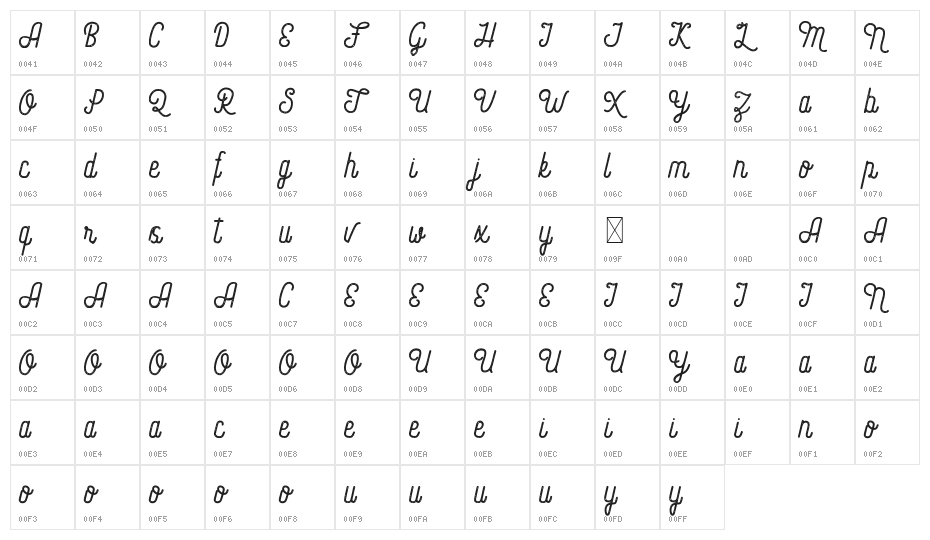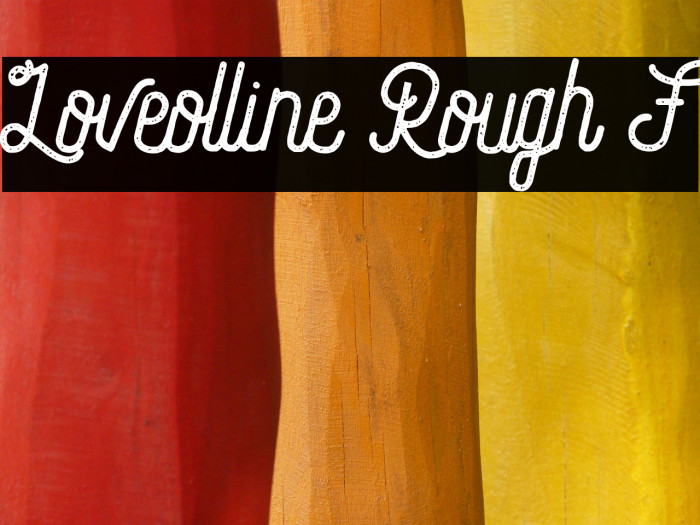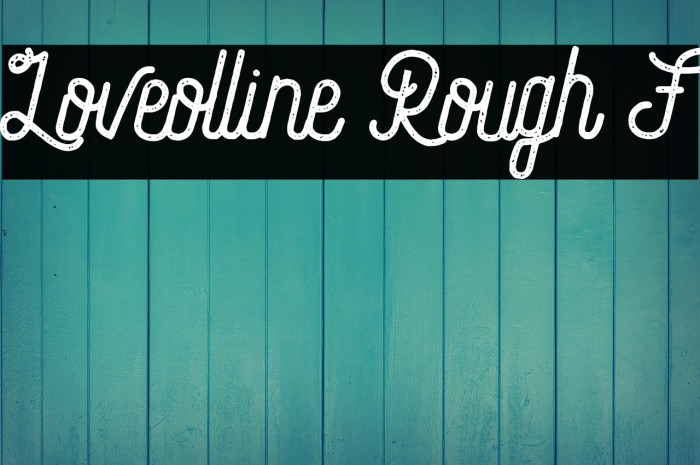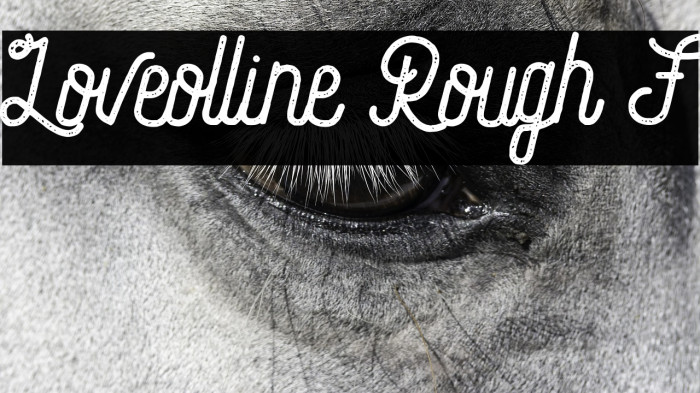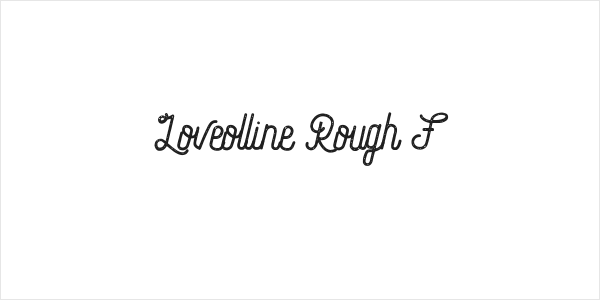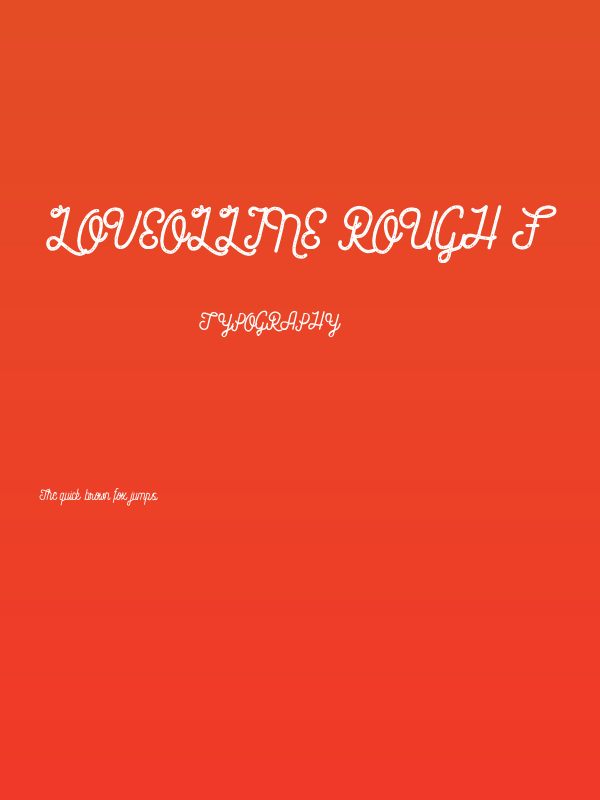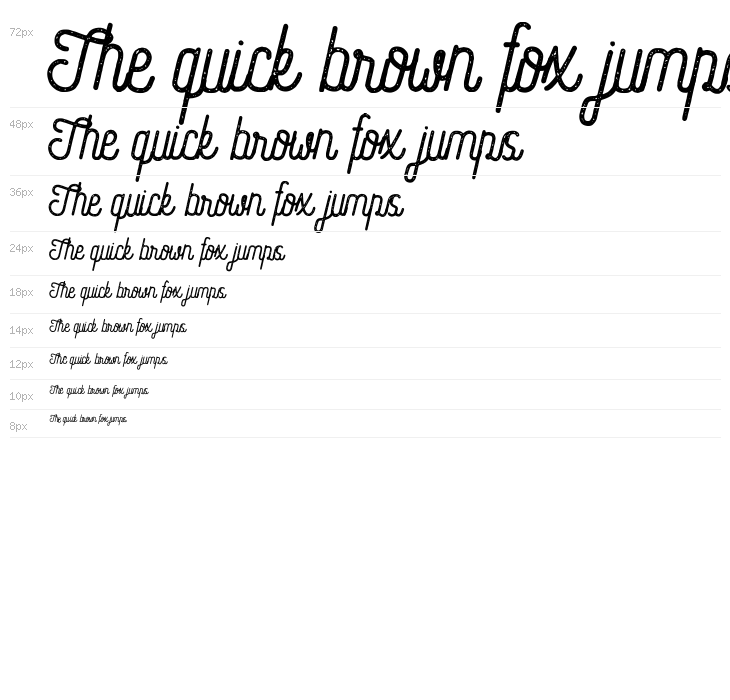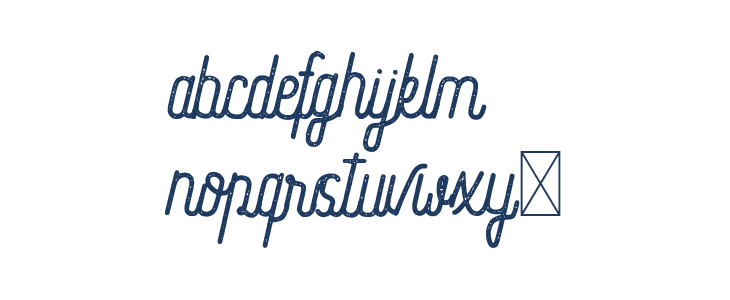
Loveolline Rough F Font
Loveolline Rough F Description
This font features a playful and decorative script style with a rough texture that adds a handcrafted feel. The letters are connected in a cursive manner, giving it a flowing and dynamic appearance. The uppercase and lowercase letters maintain a consistent style, with loops and swirls that enhance its whimsical character. The rough texture gives it a vintage and rustic look, making it suitable for designs that require a personal touch. The font includes both uppercase and lowercase alphabets, numbers, and a selection of special characters, ensuring versatility in various design applications.
| Proposed Projects | Ideal for wedding invitations, greeting cards, logos, and branding materials that require a personal and whimsical touch. |